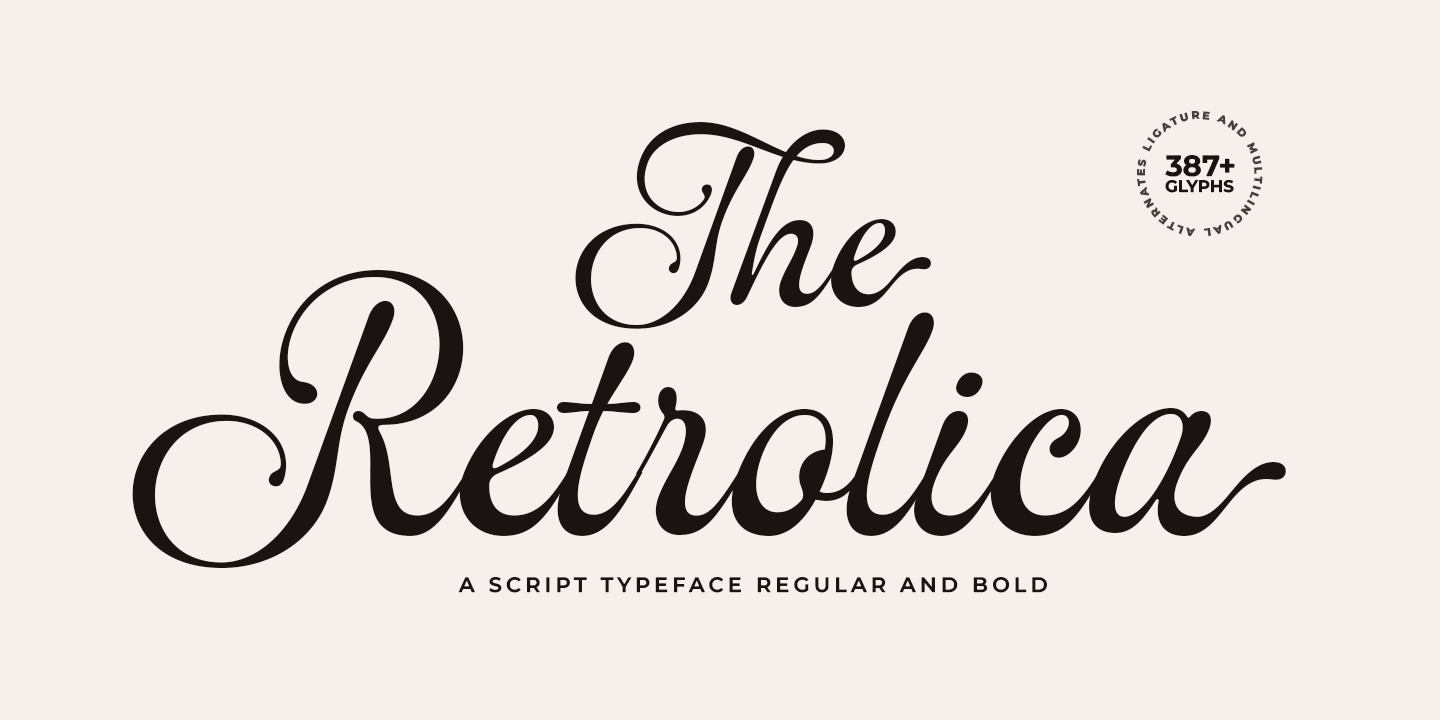
The Retrolica Font is perfect for vintage photography studios, retro camera shops, classic film photography exhibitions, nostalgic photo album designs, antique camera collections, vintage poster reproductions, classic advertising recreations, retro art galleries, nostalgic lifestyle brands, vintage design museums, classic film festivals, and authentic period photography projects.
This font is exciting because it captures the timeless elegance and photographic precision of the legendary Leica camera tradition, featuring sharply refined letterforms that embody the same meticulous craftsmanship and optical excellence that made Leica cameras the choice of history's greatest photographers and the gold standard for capturing life's most important moments with uncompromising quality. The precisely calibrated character design reflects both the mechanical precision of fine German engineering and the artistic heritage of documentary photography, creating typography that feels both technically superior and aesthetically timeless. Each letter demonstrates the kind of optical perfection and craftsmanship legacy that transforms ordinary text into declarations worthy of the most prestigious photographic traditions.
The The Retrolica Font family includes regular and bold weights with complete character sets featuring precision-engineered numerals, photographic punctuation marks, and decorative elements inspired by vintage camera designs, classic Leica aesthetics, darkroom equipment, and traditional photography symbols. Advanced versions may offer additional stylistic variants with enhanced vintage photographic effects, alternate characters that reflect classic camera lettering practices, and ornamental elements that celebrate the rich heritage of precision photography and German optical engineering.
Whether you're developing photography-focused branding, creating vintage camera marketing materials, or designing classic photographic content, The Retrolica Font Free Download provides the optical precision and photographic heritage your project needs to honor the legendary Leica tradition while appealing to photography enthusiasts who appreciate the finest craftsmanship and historical significance of classic camera design. This typeface transforms ordinary text into photographic declarations that capture both the technical excellence and artistic legacy of precision photography. The font's photographic character makes it essential for brands and institutions that celebrate photography heritage and optical precision. Photography enthusiasts and vintage camera collectors will appreciate how this font brings authentic Leica tradition to their work with its genuinely precise and photographically sophisticated character that honors the legacy of optical excellence.